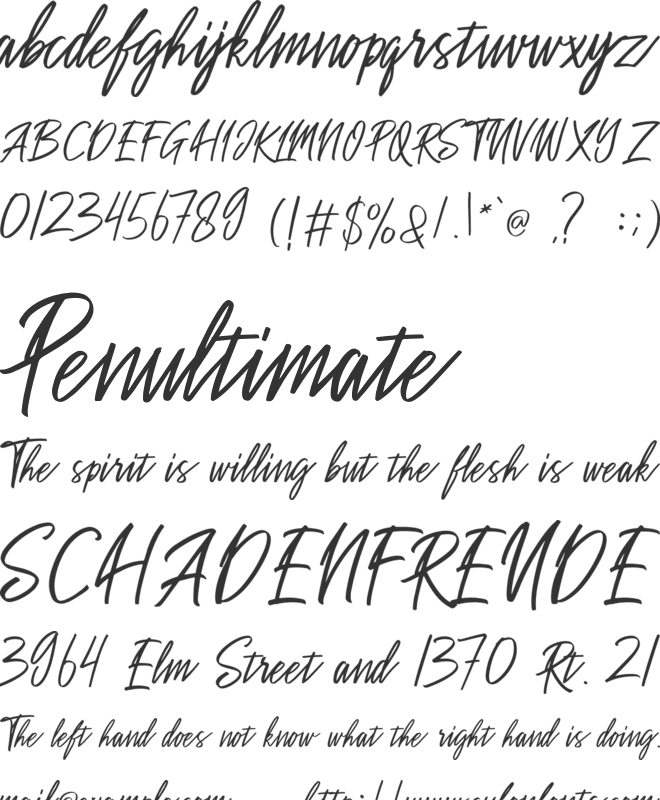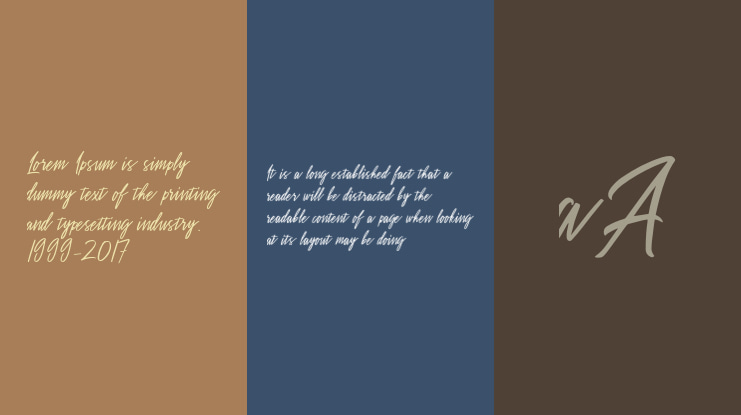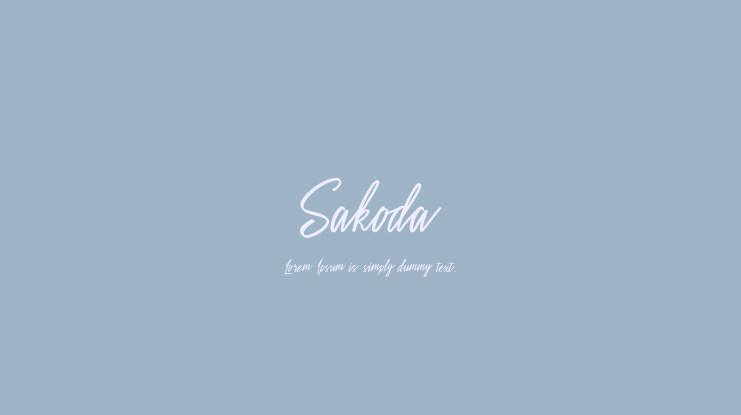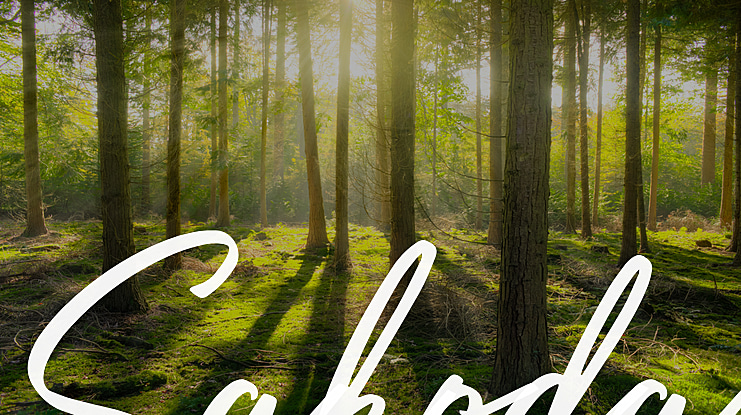
Sakoda Font
Indotitas Studio
Sakoda Signature Font is a elegant and modern looking handwritten script, ideal for use in projects that need an organic and natural style.